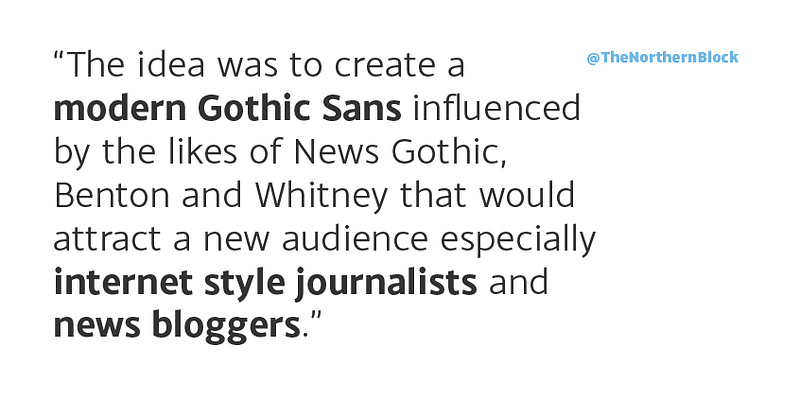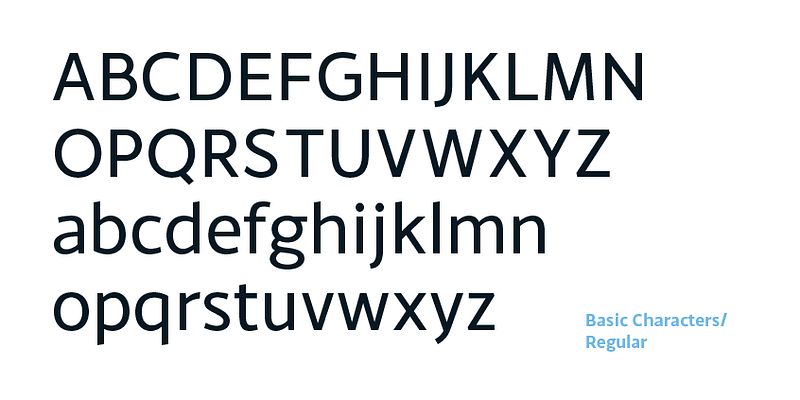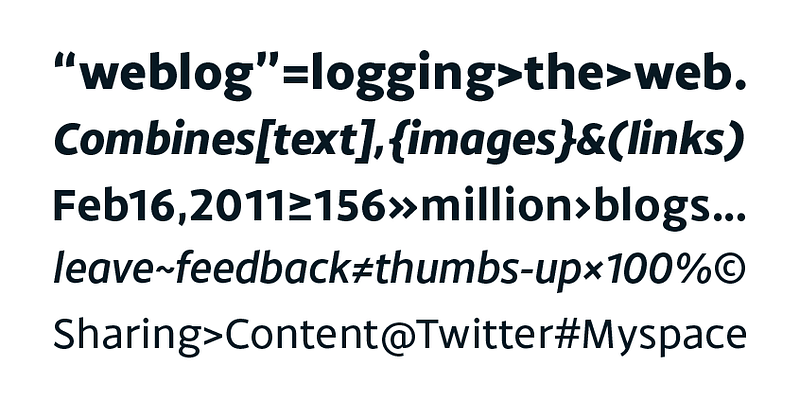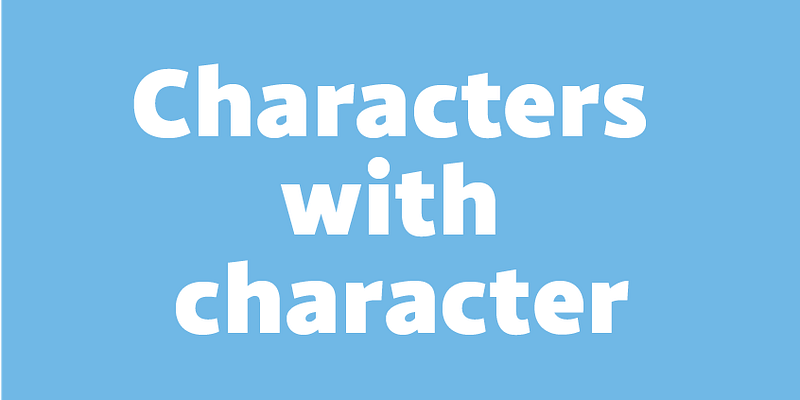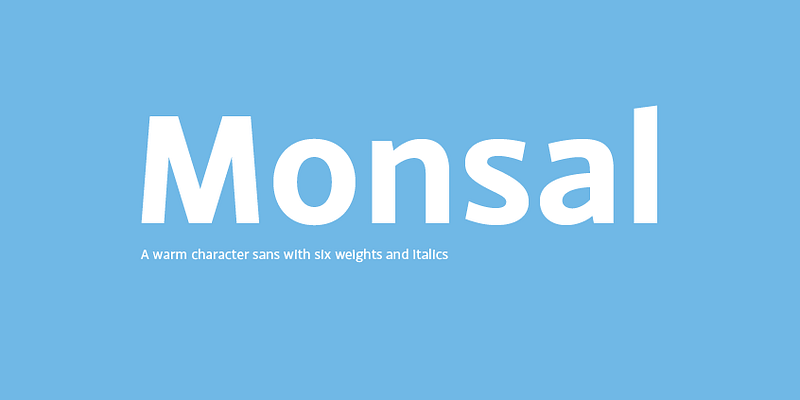
Monsal Gothic is a contemporary gothic sans font family with simple and condensed proportions. Details include 680 characters, 14 weights including italics, small caps, manually edited kerning and OpenType features.